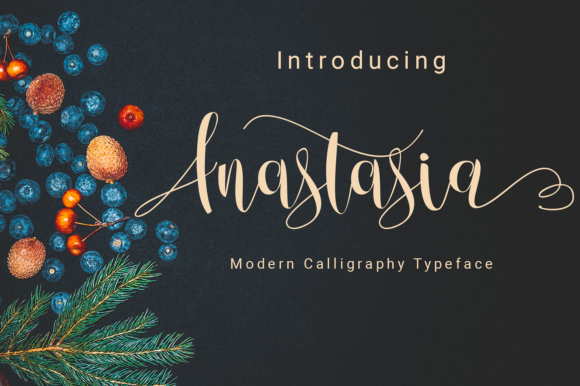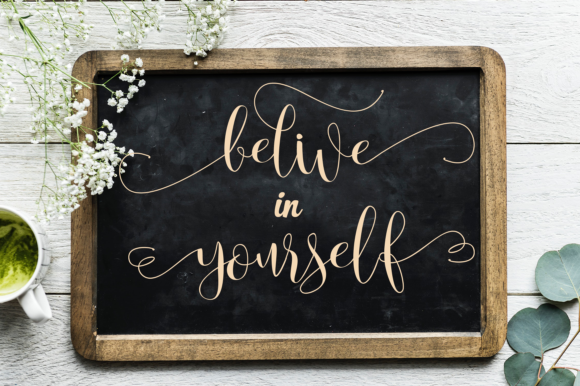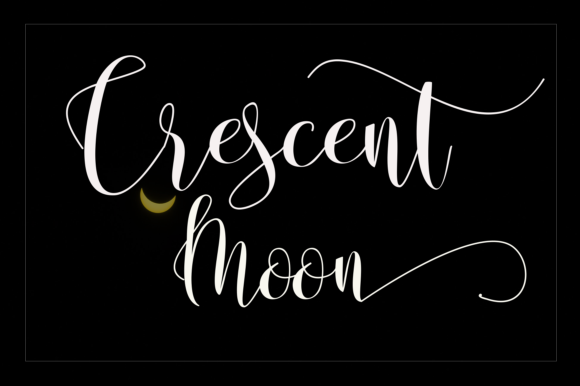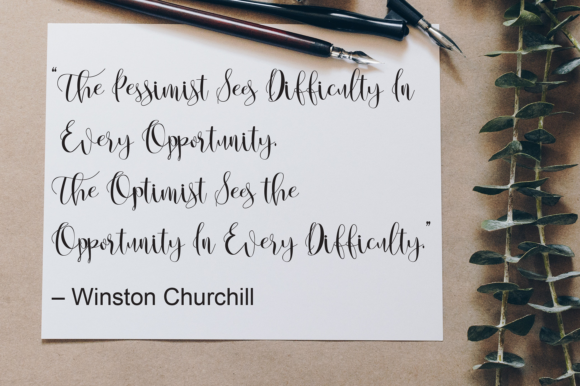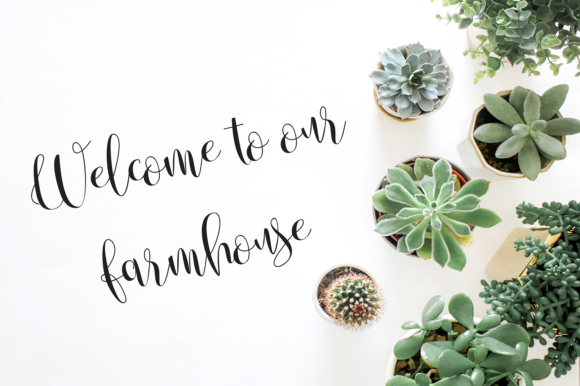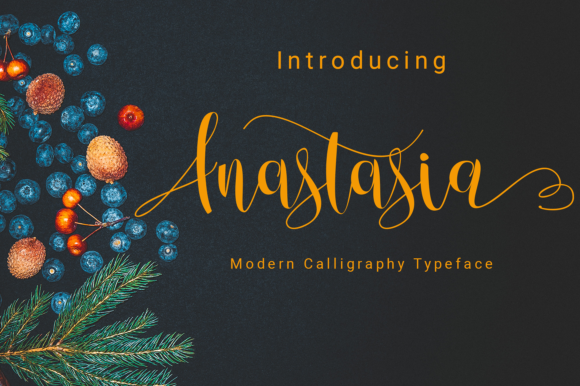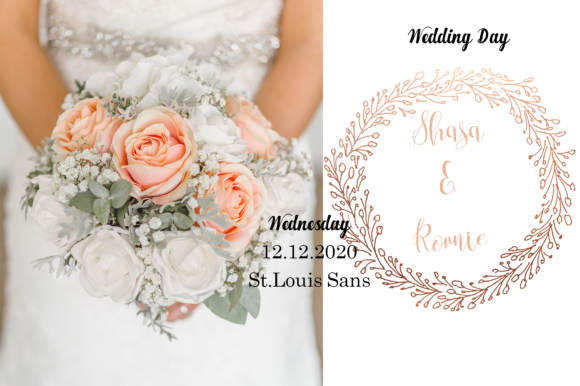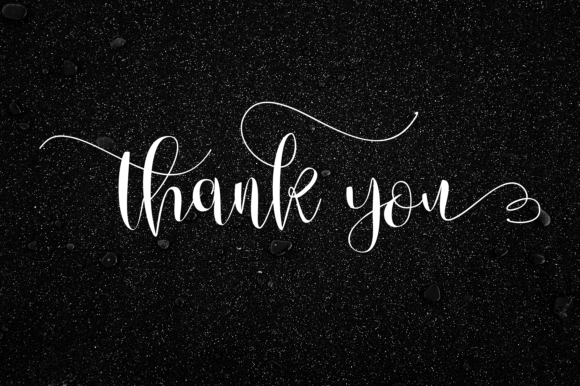
Anastasia Script Font
The Anastasia is a modern handwritten font. It has a gentle, natural yet trendy feel which is perfect for wedding invitations, graduations, birthdays, gatherings, and much more!